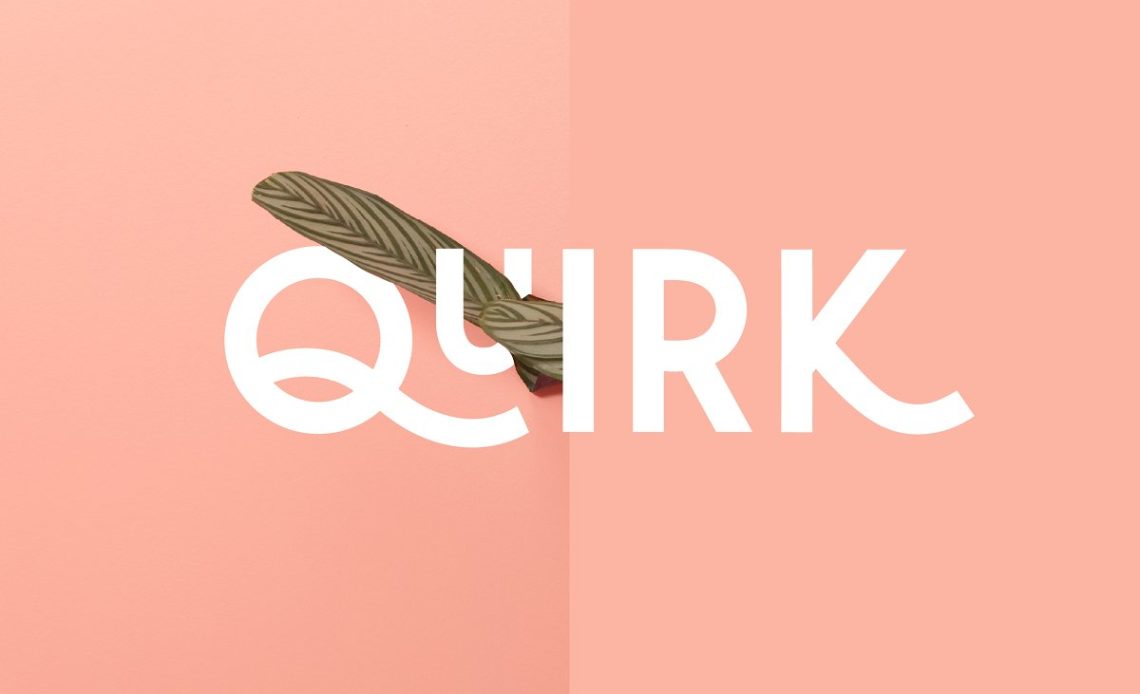
Introducing Quirk - a fun and lively display font created by Alex Cottles. This sans-serif font family is perfect for adding personality to any project. Its unique feature of stackable characters makes it super fun to work with and a must-have in your font collection.
Quirk comes with all caps alternate characters, small caps alternate characters, numbers, and special characters, making it perfect for any purpose. The font is available in OTF, TTF, and WOFF file formats. However, please note that advanced graphic software that supports Open Type Features, like Adobe Illustrator, InDesign, or Photoshop, is required for the complete usability of the font. Quirk may not be fully functional in basic text software like Microsoft Word.
Incorporate Quirk with bold sans serifs to achieve a dynamic and eye-catching design. Whether you are working on a logo, a poster, or any creative project, Quirk will add that extra touch of playfulness that will set it apart.